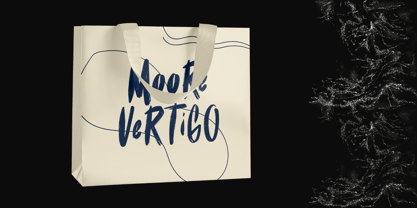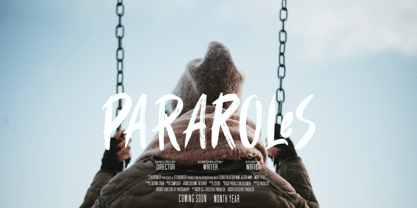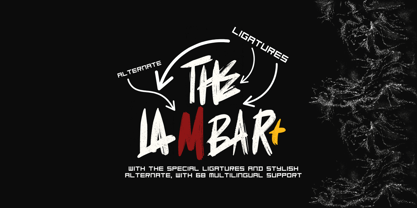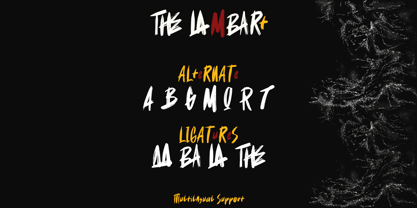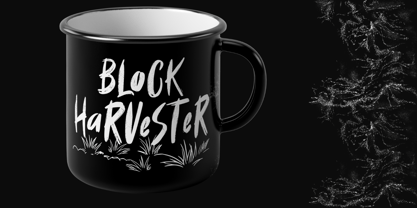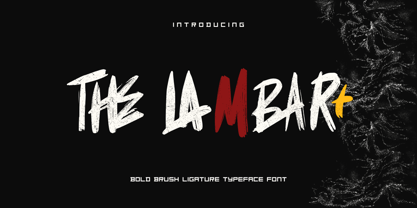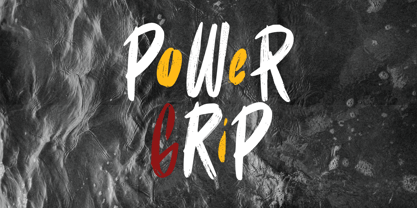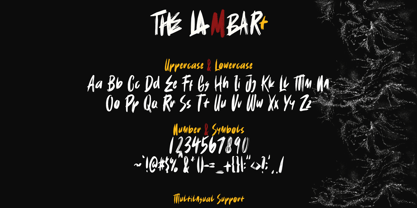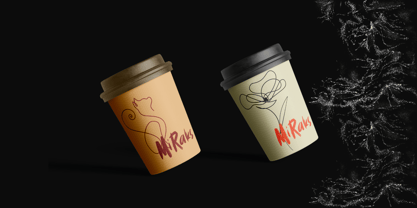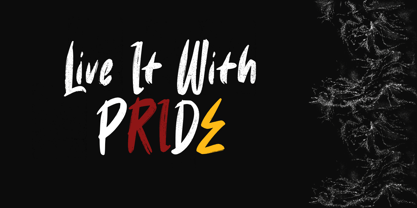
The Lambart
by DM Studio
The The Lambart Font Family was designed by Dimas Prasetyo and published by DM Studio. The Lambart contains 1 styles.
The Lambart is a dynamic and bold brush font that brings energy and personality to your designs. Crafted with thick, expressive strokes, this font is perfect for creating eye-catching headlines, logos, posters, and social media graphics. Its hand-painted style adds an authentic, artistic vibe that stands out in both digital and print projects.
• Bold & Expressive Brush Strokes for maximum impact
• Handcrafted Feel with natural texture and movement
• Versatile Use: Ideal for branding, headlines, packaging, and more
• Comprehensive Character Set: Uppercase, lowercase, numerals, punctuation, and special characters